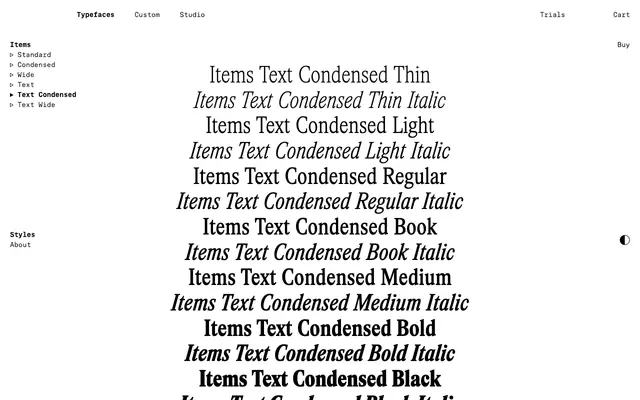
Items Text Condensed
The condensed text cut of Items Text: a narrowed transitional serif for tight body copy across seven weights with italics.
Items Text Condensed combines the body-copy character of Items Text with a condensed width. Subdued contrast, open spacing relative to its width and a sturdier build keep it readable at small sizes, while seven weights including Book give it editorial range. It sits inside the wider Items system across Standard, Condensed and Wide widths and across Display and Text branches, with Latin Extended language support and a full OpenType feature set.
The condensed width of the Items Text branch: subdued contrast and open spacing of Items Text, narrowed for body copy where horizontal economy matters.